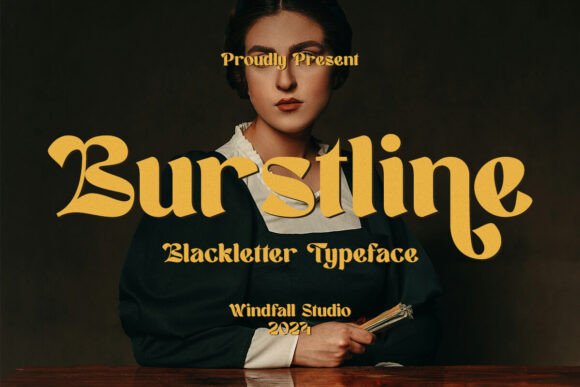
Burstline Font: A Striking Blackletter Typeface for Bold Designs
In the world of typography, blackletter fonts have always been a popular choice for designers looking to add a touch of elegance and sophistication to their projects. One such font that has caught the attention of designers and typography enthusiasts alike is Burstline, a striking blackletter typeface from Windfall Studio. In this article, we’ll take a closer look at Burstline, its features, and how it can be used to elevate your designs.
Introducing Burstline: A Modern Twist on Traditional Blackletter
Burstline is a modern blackletter typeface that combines the traditional elegance of blackletter calligraphy with a contemporary twist. Designed by Windfall Studio, Burstline is perfect for bold headlines, logos, posters, and editorial designs that require a touch of sophistication and historical charm. The font’s sharp, intricate details and dramatic flair make it an excellent choice for designers looking to add a unique and eye-catching element to their projects.
Key Features of Burstline Font
- Traditional Elegance: Burstline’s design is rooted in traditional blackletter calligraphy, making it perfect for projects that require a touch of classic elegance.
- Modern Twist: The font’s modern twist sets it apart from traditional blackletter fonts, making it suitable for contemporary designs.
- Sharp and Intricate Details: Burstline’s sharp, intricate details add a level of sophistication to any project.
- Dramatic Flair: The font’s dramatic flair makes it perfect for bold headlines and attention-grabbing designs.
- Versatile: Burstline can be used for a wide range of projects, from vintage-inspired designs to medieval-themed projects and contemporary branding campaigns.
Uses of Burstline Font
Burstline’s versatility makes it an excellent choice for various design projects. Here are some of the ways you can use Burstline:
- Headlines and Titles: Burstline’s bold and dramatic design makes it perfect for headlines and titles that require attention-grabbing typography.
- Logos and Branding: The font’s unique and eye-catching design makes it an excellent choice for logos and branding projects that require a touch of sophistication.
- Posters and Flyers: Burstline’s bold and dramatic design makes it perfect for posters and flyers that require attention-grabbing typography.
- Editorial Designs: The font’s elegant and sophisticated design makes it an excellent choice for editorial designs, such as magazine covers and articles.
- Vintage-Inspired Designs: Burstline’s traditional elegance makes it perfect for vintage-inspired designs that require a touch of classic charm.
- Medieval-Themed Projects: The font’s dramatic flair and intricate details make it an excellent choice for medieval-themed projects.
Tips for Using Burstline Font
Here are some tips for using Burstline font effectively:
- Use it Sparingly: Burstline’s bold and dramatic design can be overwhelming if used excessively. Use it sparingly to add emphasis to specific elements of your design.
- Pair it with Simple Fonts: Pair Burstline with simple fonts to create a balanced design.
- Experiment with Colors: Burstline looks great in bold colors. Experiment with different colors to find the one that works best for your design.
- Pay Attention to Kerning: Pay attention to kerning to ensure that the font looks professional and polished.
Burstline font is a striking blackletter typeface that combines traditional elegance with a modern twist. Its sharp, intricate details and dramatic flair make it perfect for bold headlines, logos, posters, and editorial designs. With its versatility and range of uses, Burstline is an excellent addition to any designer’s font library. Whether you’re working on a vintage-inspired design, a medieval-themed project, or a contemporary branding campaign, Burstline delivers a powerful and timeless aesthetic.
- What is Burstline font? Burstline is a striking blackletter typeface from Windfall Studio.
- What are the key features of Burstline font? Burstline’s key features include traditional elegance, a modern twist, sharp and intricate details, and dramatic flair.
- What are the uses of Burstline font? Burstline can be used for headlines, titles, logos, branding, posters, flyers, editorial designs, vintage-inspired designs, and medieval-themed projects.
- How can I use Burstline font effectively? Use Burstline sparingly, pair it with simple fonts, experiment with colors, and pay attention to kerning.